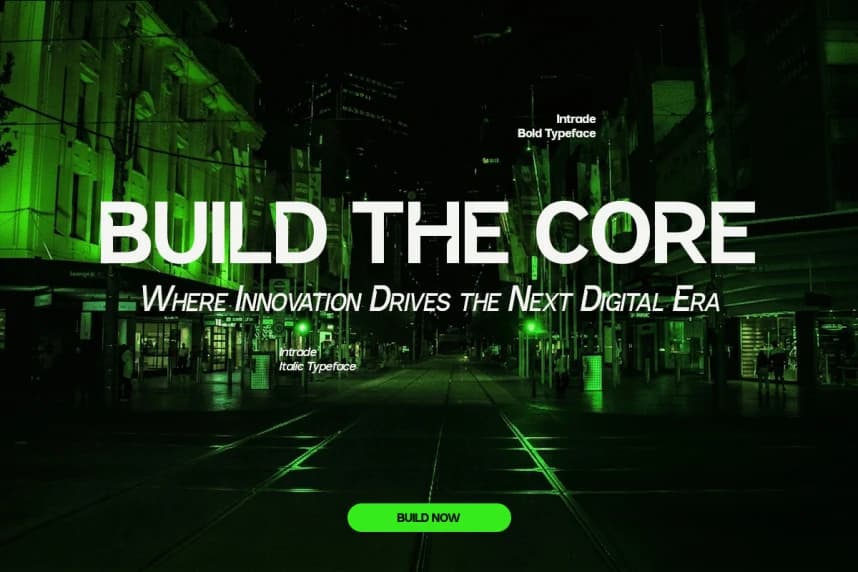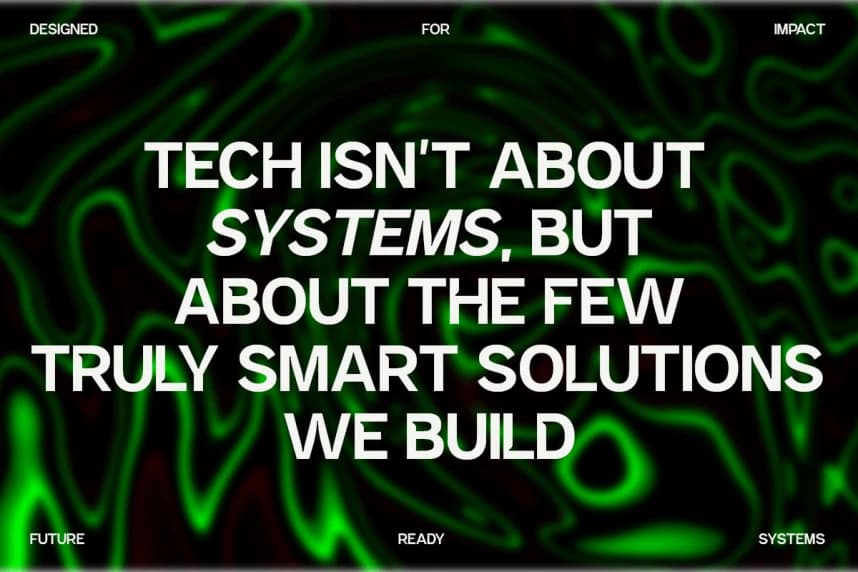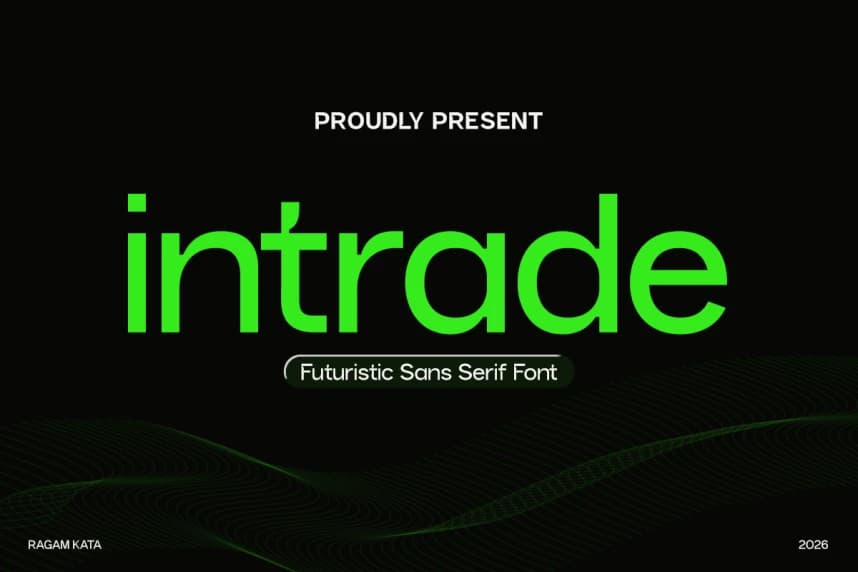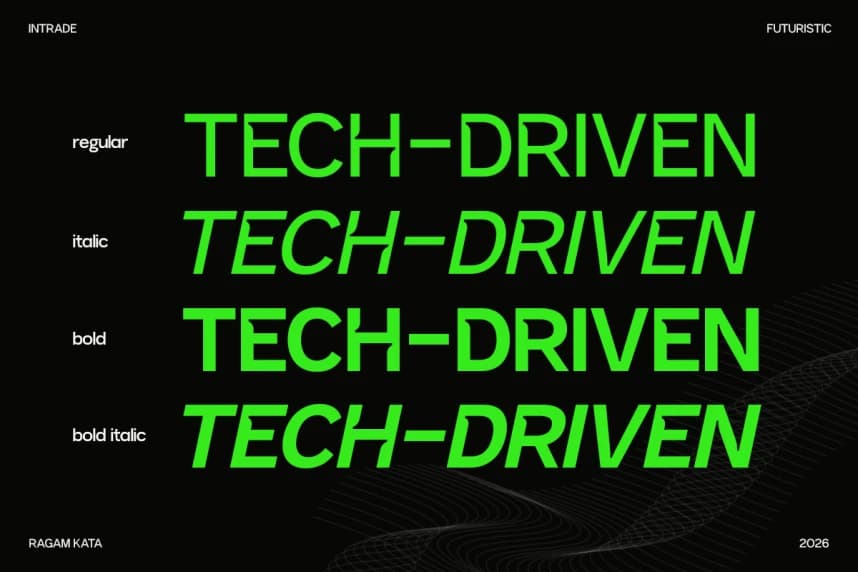
Intrade Sans Serif Font is a futuristic sans serif font designed to capture the essence of modern technology and digital innovation. With its clean geometric structure and smooth curves, Intrade delivers a sleek and forward-thinking aesthetic that feels both minimal and powerful. The balanced propor
Intrade Sans Serif Font is a futuristic sans serif font designed to capture the essence of modern technology and digital innovation. With its clean geometric structure and smooth curves, Intrade delivers a sleek and forward-thinking aesthetic that feels both minimal and powerful. The balanced proportions and sharp design make it perfect for creating a strong and professional visual identity.